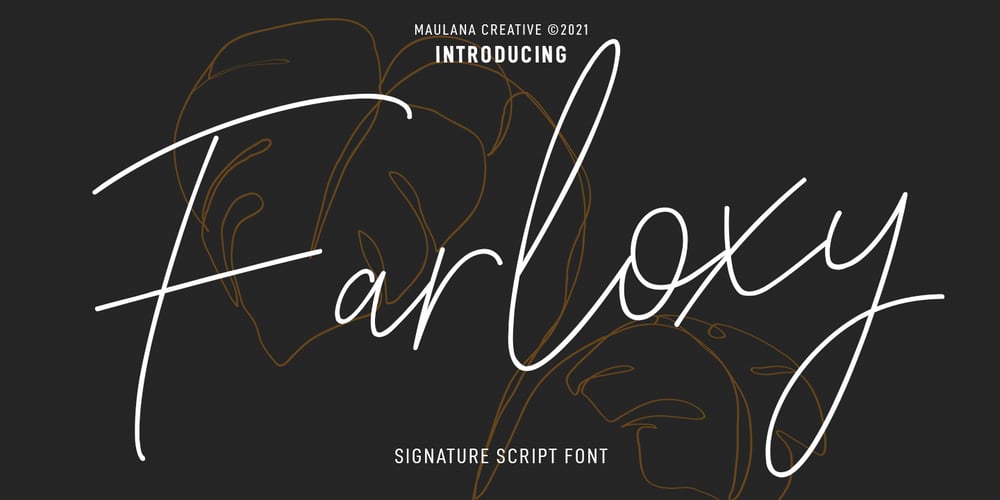
Farloxy Font Family was designed by Gilang Maulana and published by Maulana Creative. Farloxy contains 1 styles and family package options. Farloxy is a Casual Signature script font. With light mono-line stroke, slant, Condensed and fun character with a bit of ligatures and lowercase alternate. To give you an extra creative work. Farloxy font support multilingual more than 100+ language. This font is good for logo design, Social media, Movie Titles, Books Titles, a short text even a long text letter and good for your secondary text font with sans or serif. Make a stunning work with Farloxy font. Cheers, MaulanaCreative